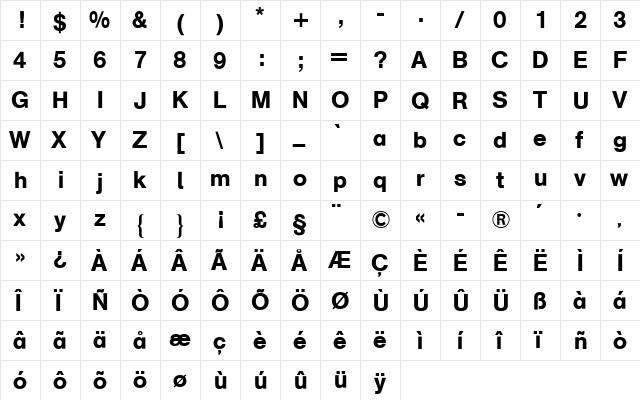
AG Schulbuch Two BQ Medium
Design Context for AG Schulbuch Two BQ Typeface
AG Schulbuch Two BQ offers clean, dependable letterforms without strong stylistic allegiance, making it a practical choice for designers who need flexibility.
Pro Tip: Pair AG Schulbuch Two BQ with a font of contrasting weight or personality to build a more expressive typographic hierarchy.